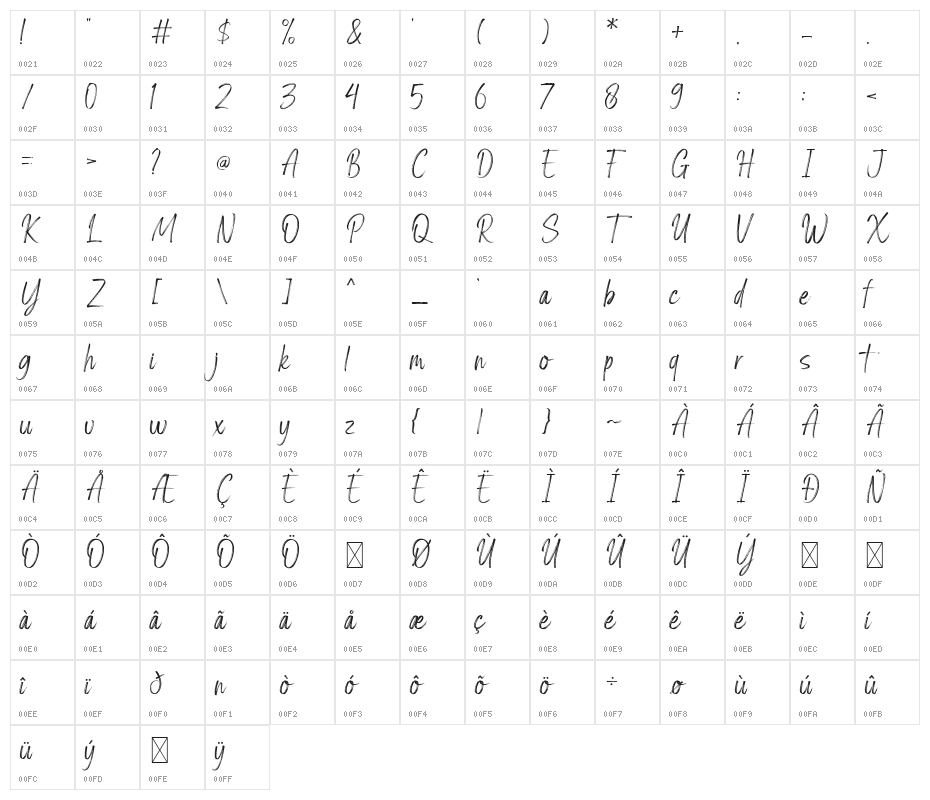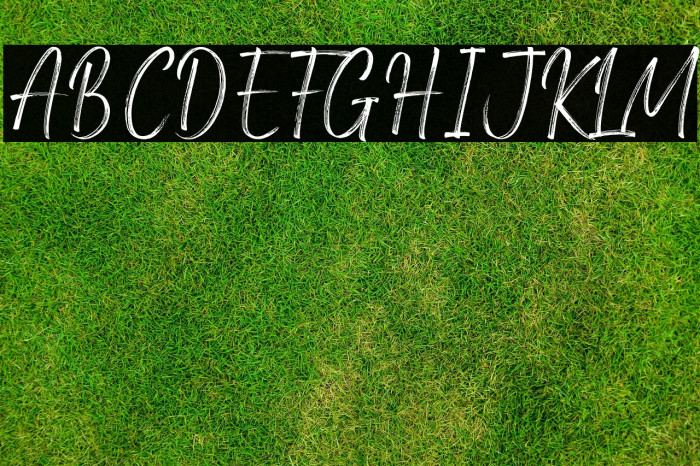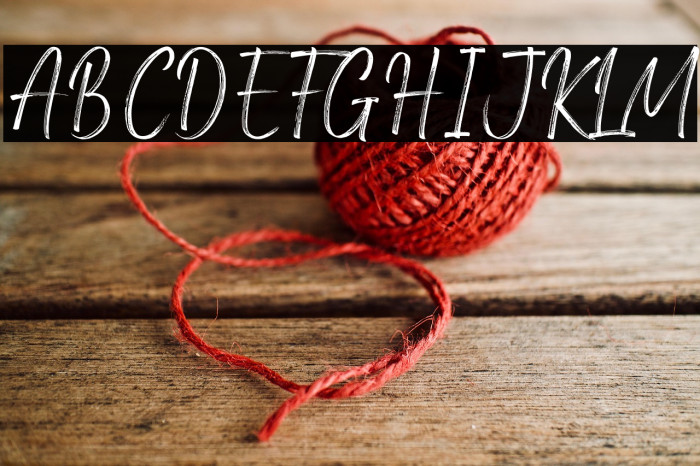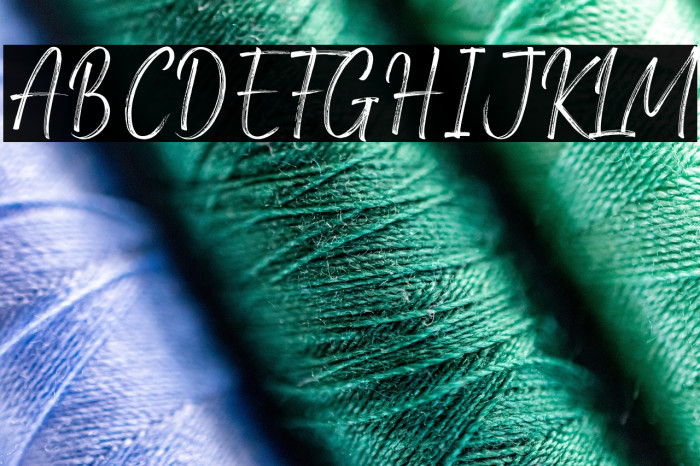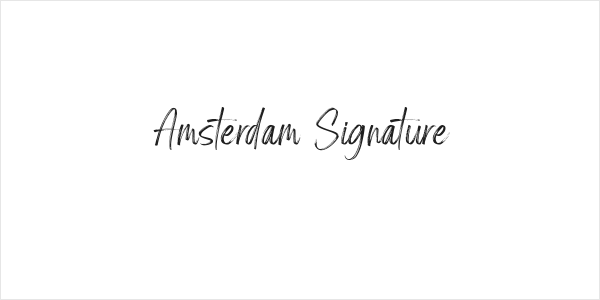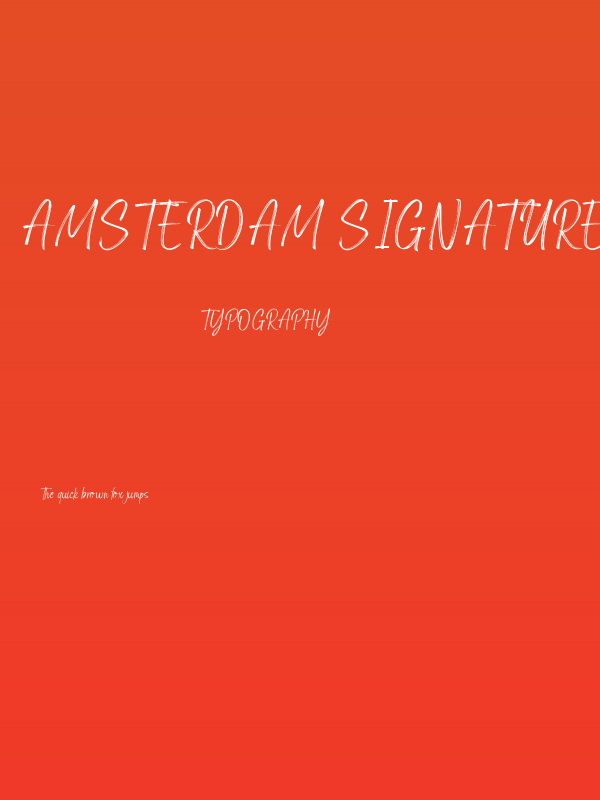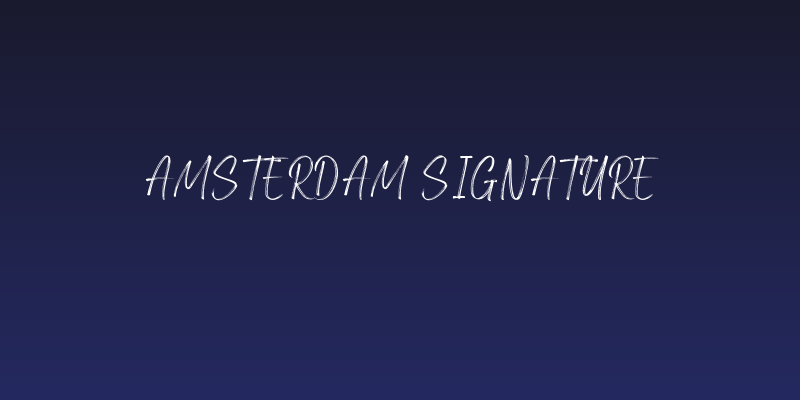
Amsterdam Signature Font
Amsterdam Signature Description
This font exudes a modern and artistic flair with its handwritten style, characterized by fluid strokes and a natural flow. The letters are elegantly crafted with a slight slant, giving them a dynamic and lively appearance. The uppercase letters are bold and commanding, while the lowercase letters maintain a graceful and smooth continuity. Numbers and special characters are designed to complement the overall aesthetic, ensuring versatility across various applications. The font's brush-like texture adds a personal touch, making it ideal for creative projects that require a humanistic and approachable feel.
| Proposed Projects | Ideal for branding, invitations, greeting cards, and social media graphics. |